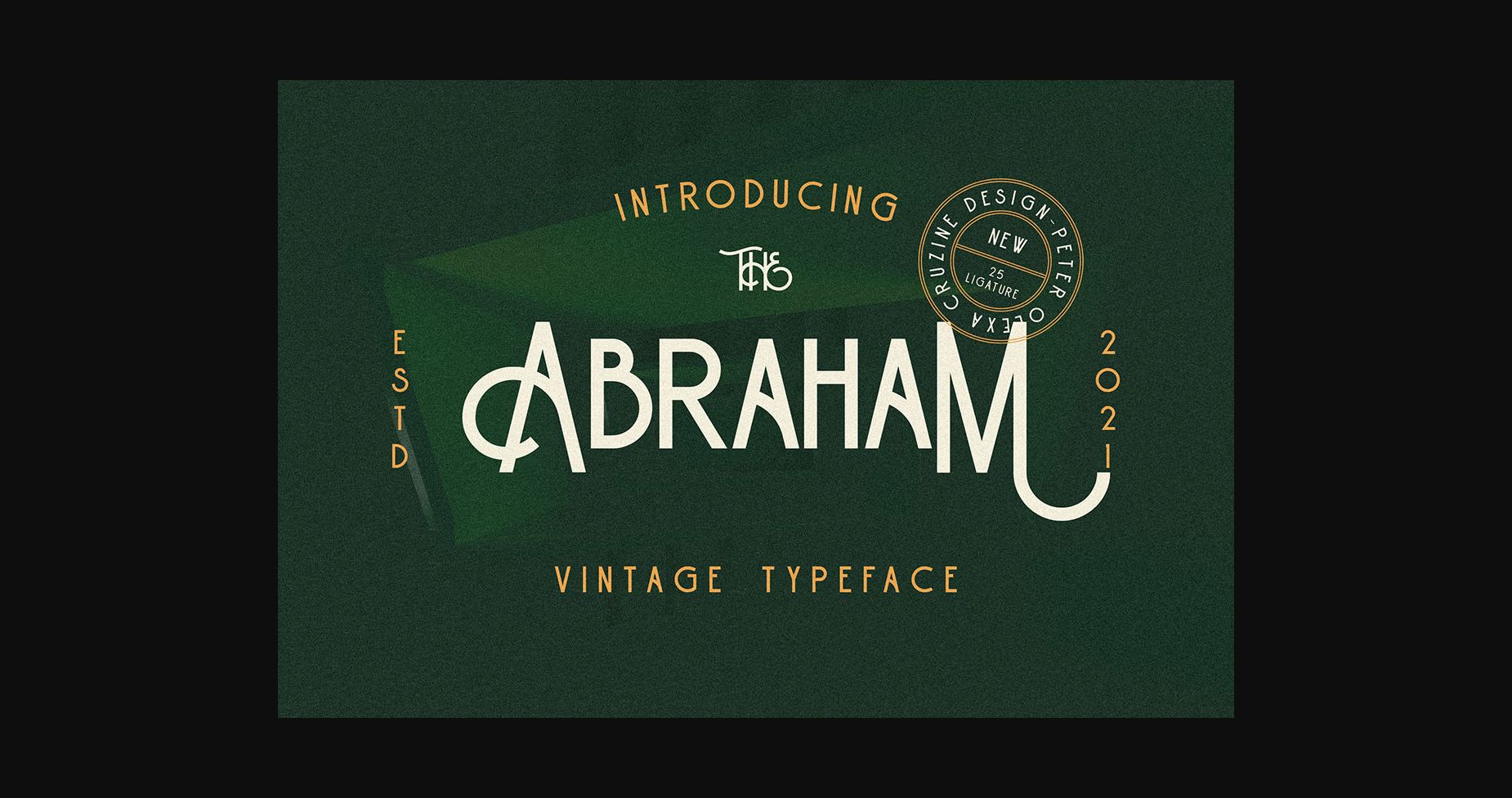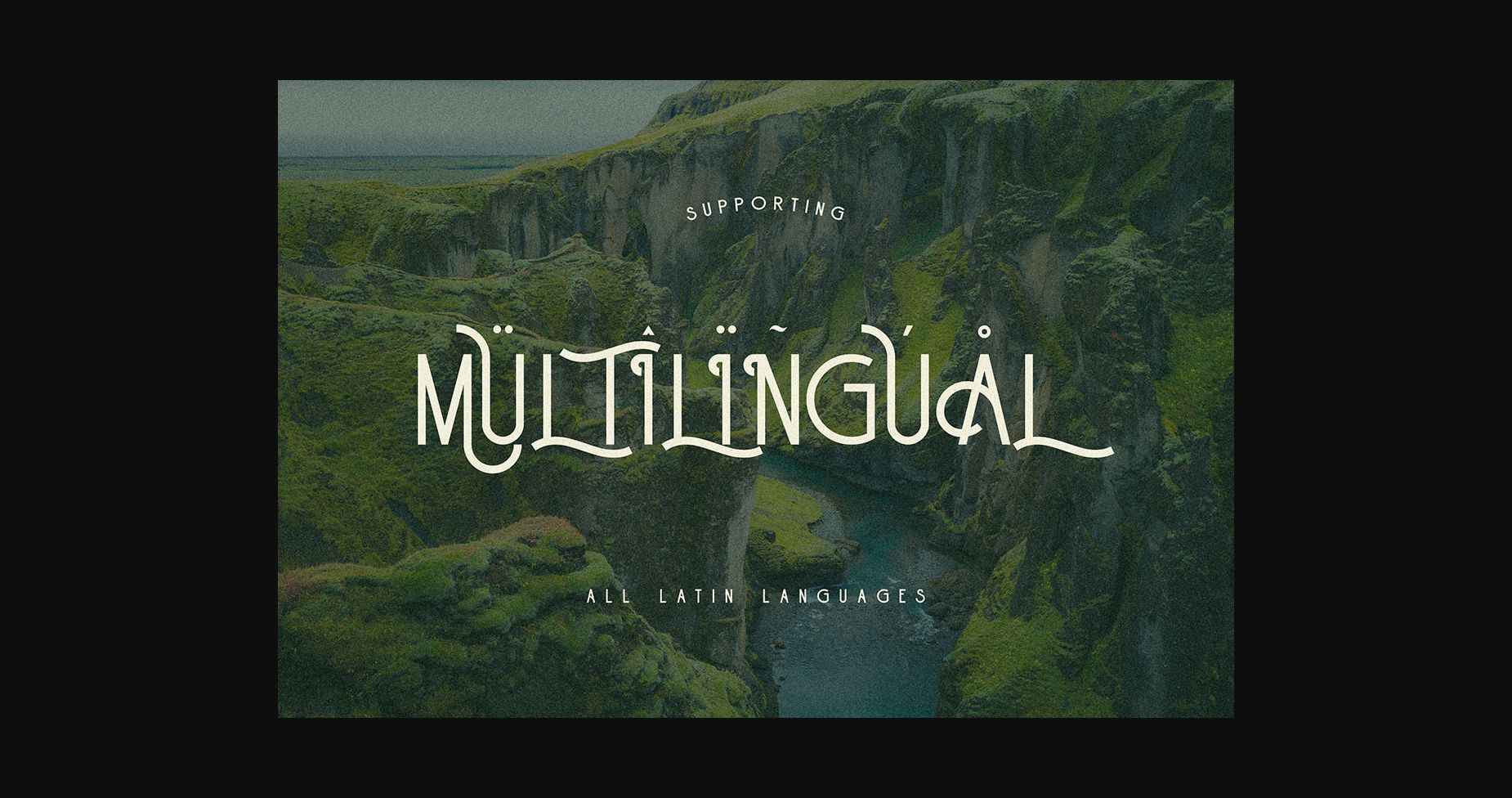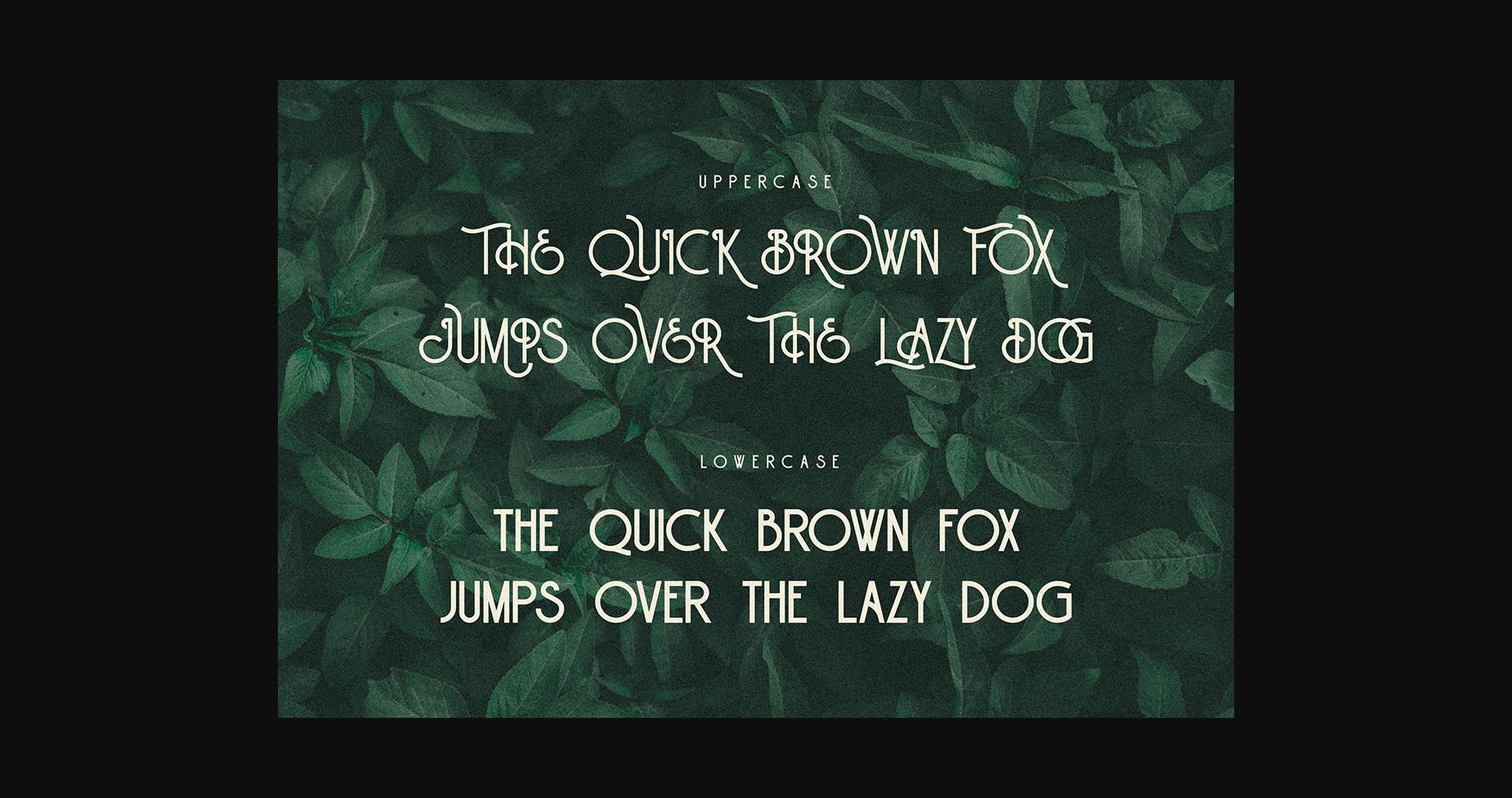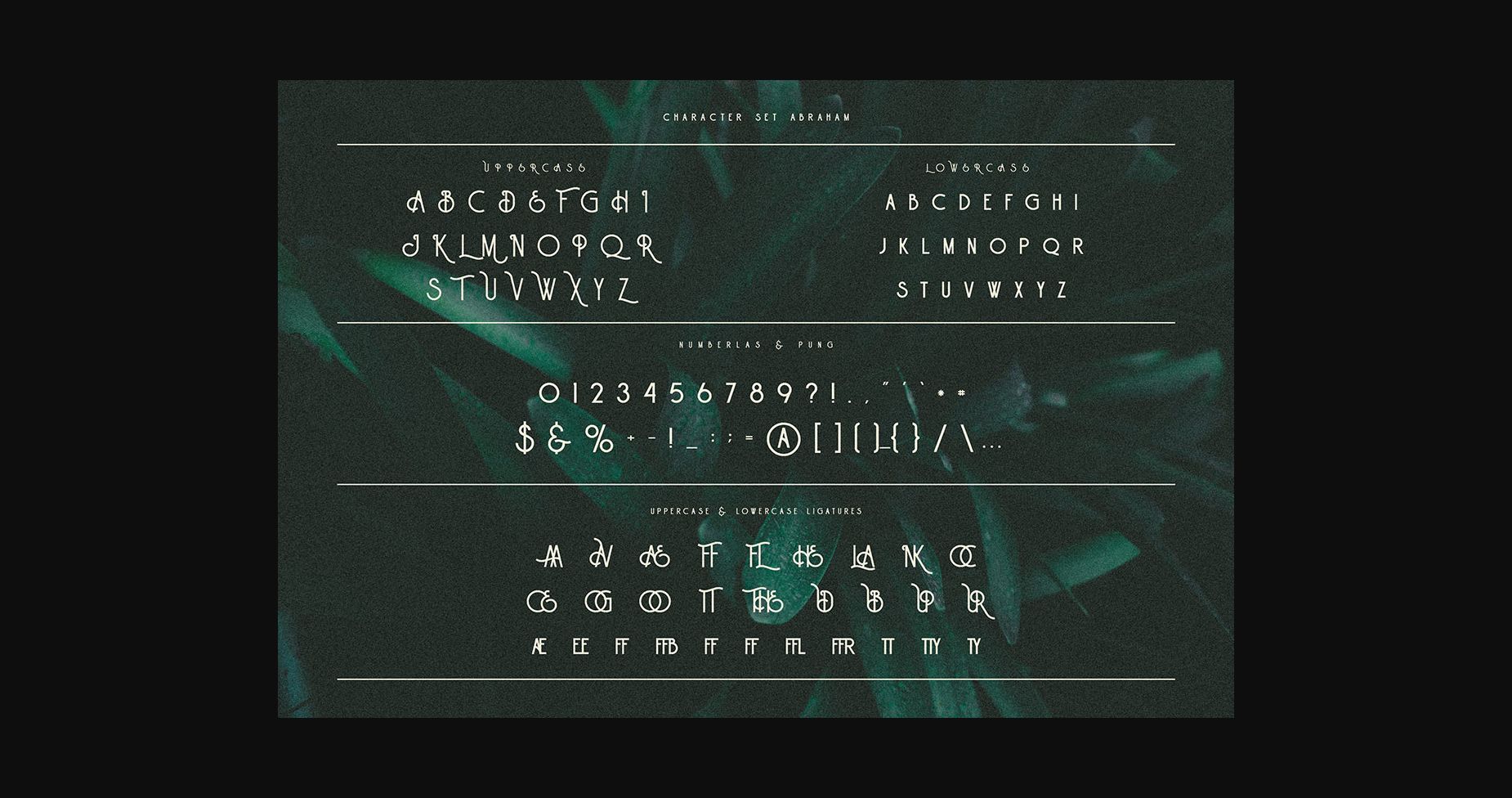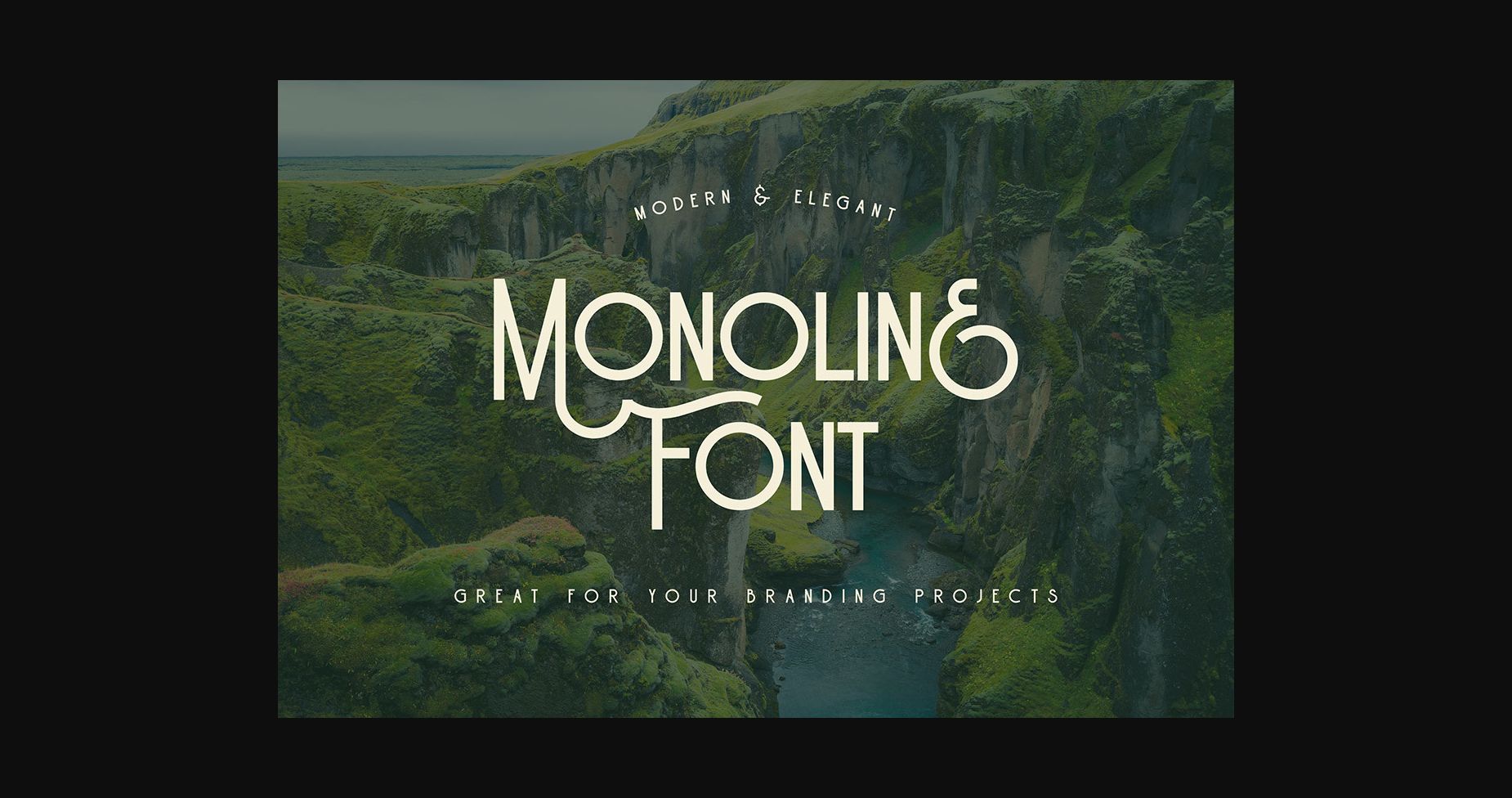
About Abraham Font
Abraham is a modern and stylish sans-serif font, designed for exclusive and trendy projects. With its clean and sharp lines, this font will give your designs an eye-catching, sophisticated look. Keep in mind that the font is PUA encoded, meaning that you can access all delightful glyphs and swashes effortlessly.